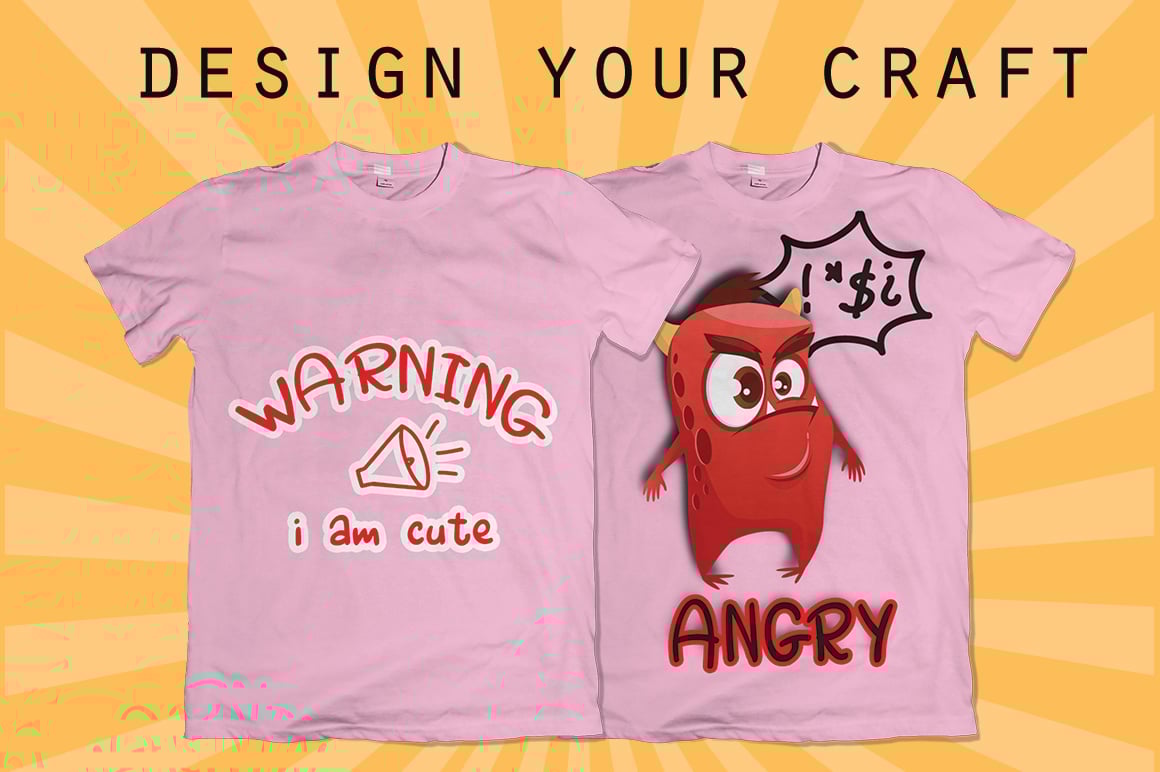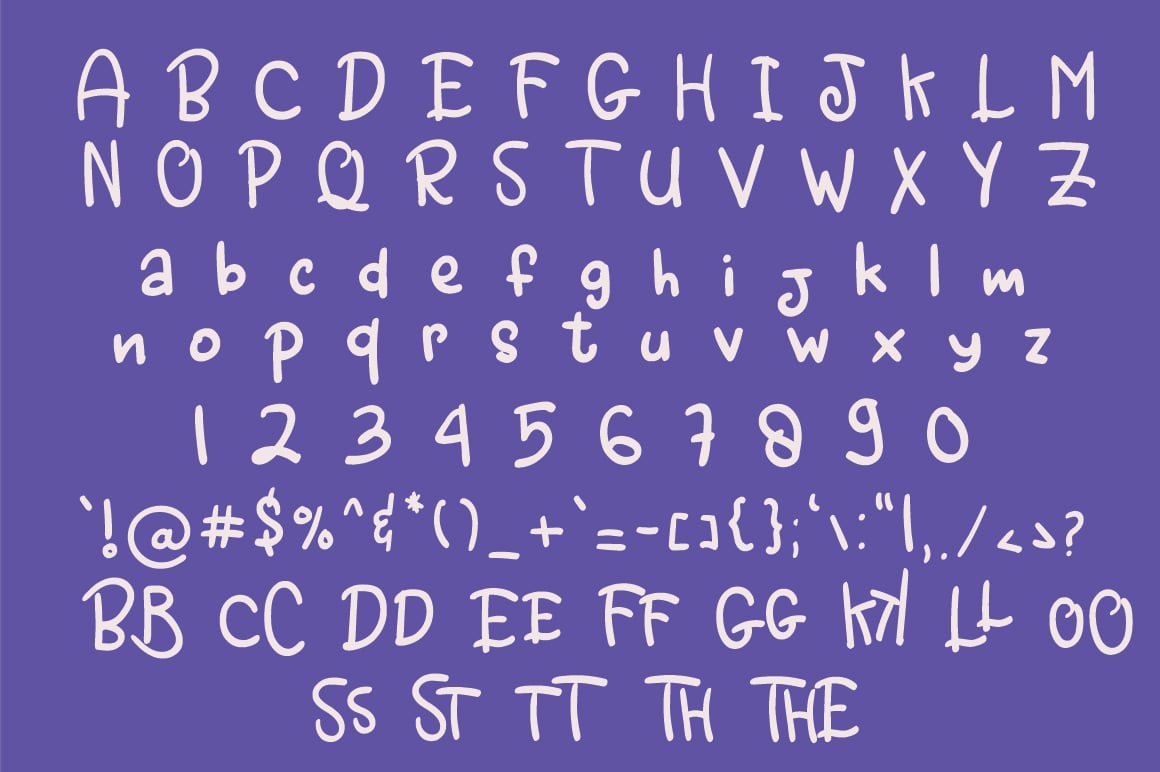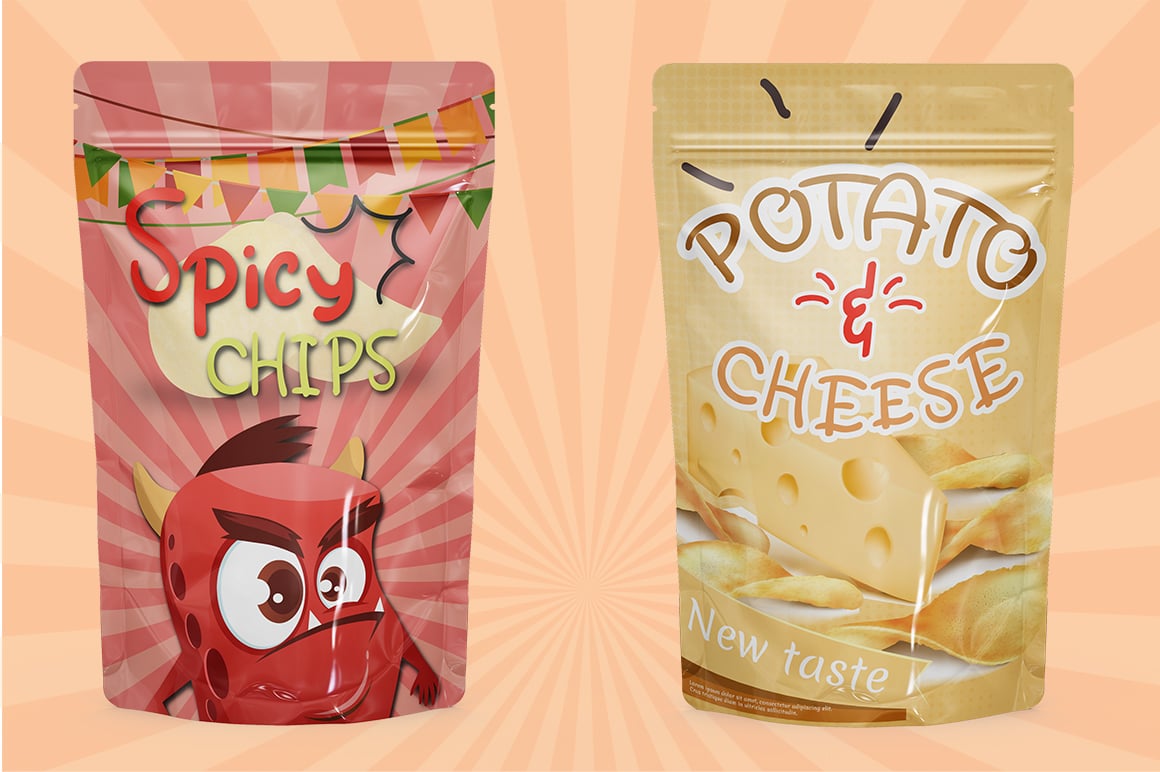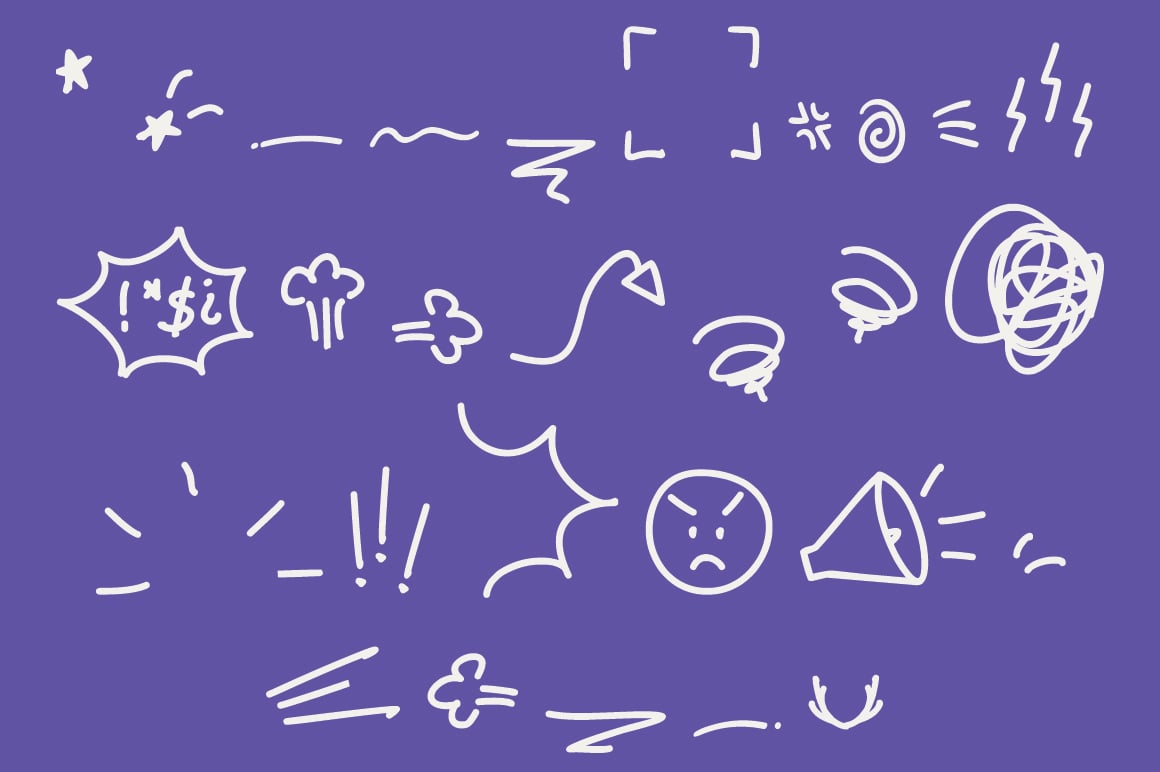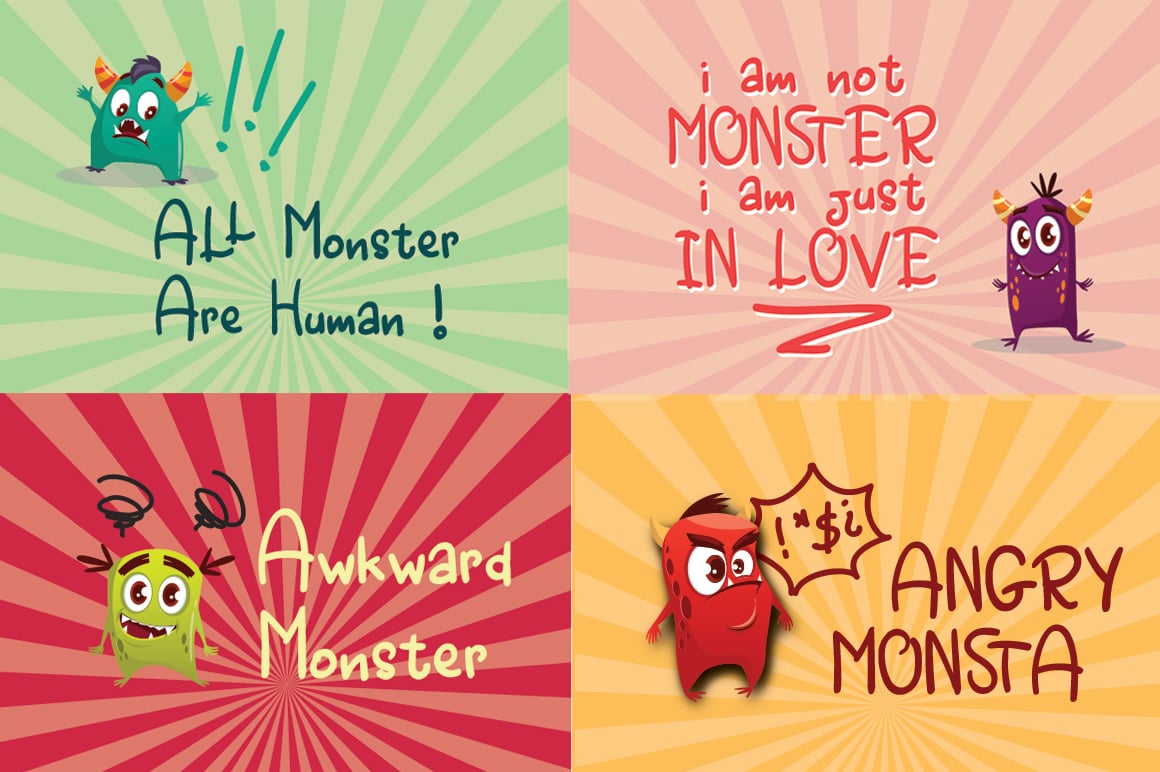
Angry Monsta – A Funny Font with doodles
Rawwr! The expressive, smooth, and funny handwritten font : Angry Monsta ~
This is a decorative brush font, which contains the usual characters from A-Z , a-z, 0-9 and standard symbols. Also it comes with extra ligatures and 26 ‘Angry’ doodles which you can mix and match together !
Set your font to “Angry Monsta Doodle” and type from A to Z, and you’ll get the comical angry doodle to make your design more cute and expressive!
Angry Monsta Features :
- Standard Uppercase & lowercase
- Numerals and symbols
- 14 UPPERCASE Ligatures ( BB, CC, DD, EE, FF, GG, KK, LL, OO, SS, ST, TT, TH, THE )
- 26 Extra Angry doodles ( Angry Monsta Doodle file)